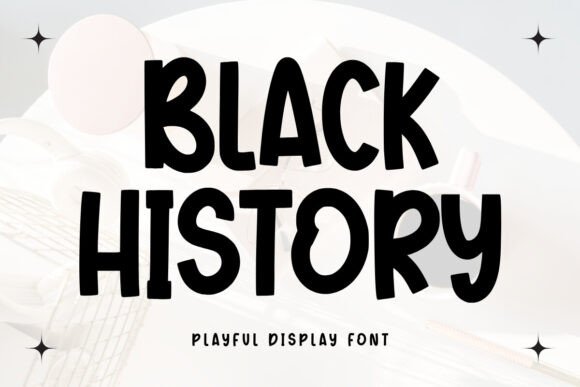
The Power of Black History Font: Elevate Your Designs with this Bold Display Font
I’ll never forget the design project that led me to discover the Black History Font. I was working on a poster for a Black History Month event, and I wanted a font that would make a statement. I spent hours scrolling through font libraries, but nothing seemed quite right. That was until I stumbled upon Black History Font. Its bold, playful style instantly captured the essence of the event, and I knew I had found the perfect fit.
Black History Font is a cute, bold display font that can add a touch of personality to any design. In this article, we’ll explore what makes this font special, its features, and how to use it in various design platforms. We’ll also discuss similar fonts, its backstory, and answer some frequently asked questions.
An Honest Review of Black History Font
- ✨ Unique and eye-catching style: Black History Font has a distinctive look that sets it apart from other fonts.
- ✅ Ease of use: This font is easy to read and works well in various design contexts.
- 💡 Versatility: Black History Font can be used for a wide range of projects, from posters and flyers to social media graphics and presentations.
While Black History Font is an excellent choice for many projects, there are a few things to keep in mind:
- ⚠️ Legibility at small sizes: Like many bold fonts, Black History Font can become difficult to read at very small sizes.
- 🤔 Limited suitability for body text: Due to its bold style, Black History Font is best used for headings and titles rather than body text.
- Explore the font’s OpenType features, such as glyphs and stylistic alternates, to add more variety to your design.
- Use the font to create eye-catching headings and titles.
One of the exciting features of Black History Font is its support for OpenType features and glyphs. These features allow you to add more variety and personality to your designs. For example, you can use stylistic alternates to create a more playful or elegant look.
The Backstory of Black History Font
While the true story behind Black History Font may be unknown, it’s easy to imagine that it was created with a passion for celebrating Black history and culture. The font’s bold, playful style seems to reflect a desire to make a statement and bring people together.
Q: What is Black History Font?
A: Black History Font is a bold, display font designed to add a touch of personality to your designs.
Q: What are some common uses for Black History Font?
A: Black History Font is commonly used for posters, flyers, social media graphics, and presentations.